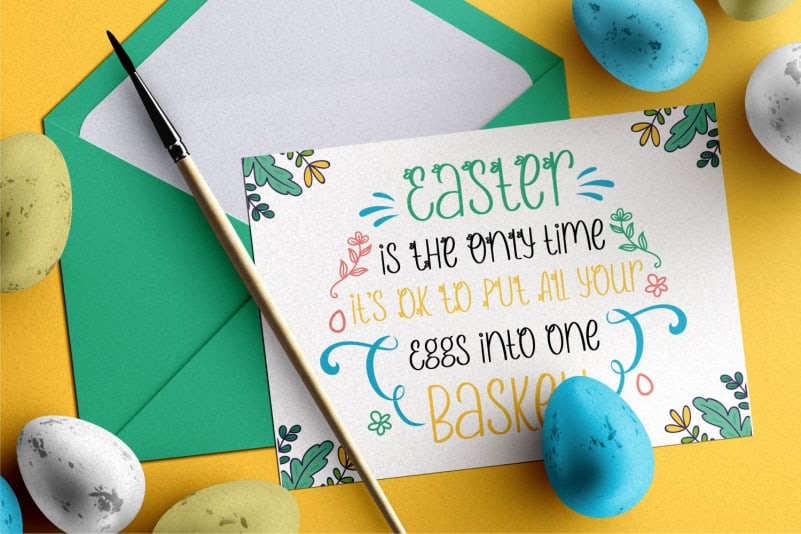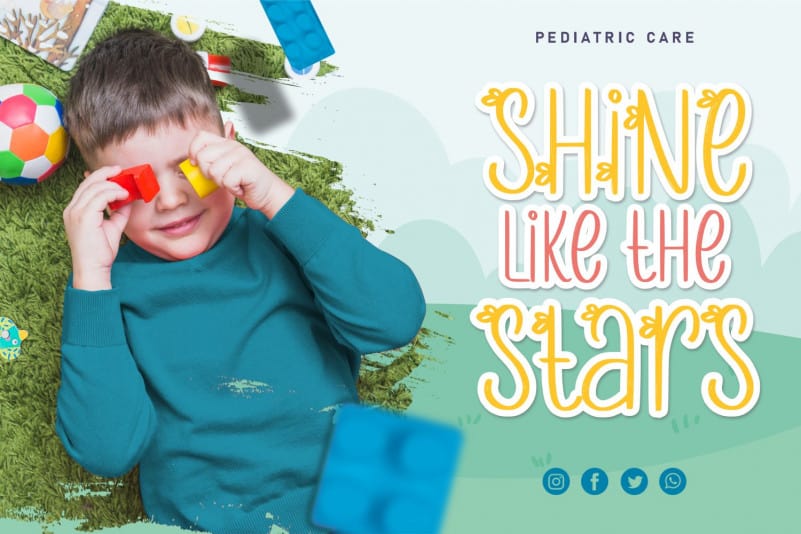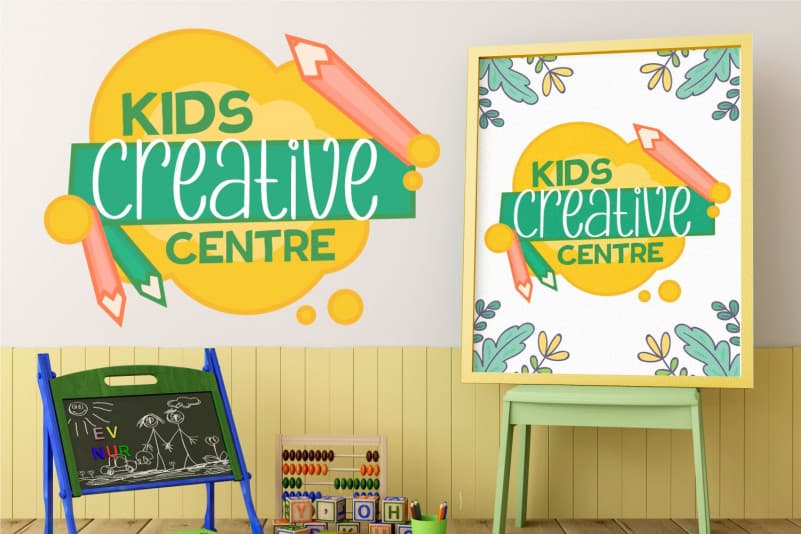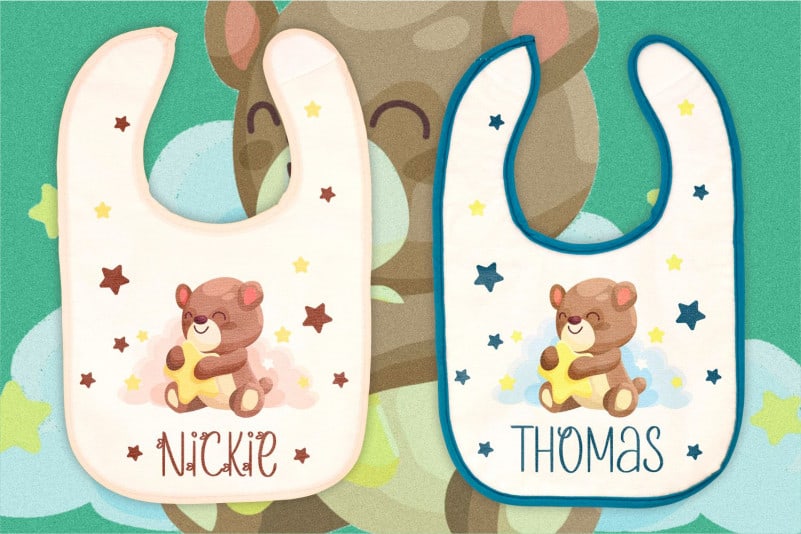
Sunny Bunny Display Font is a cute display font. Whether you use it for cartoon related designs, children games or just any creation that requires a friendly or casual touch, this font will be an amazing choice.